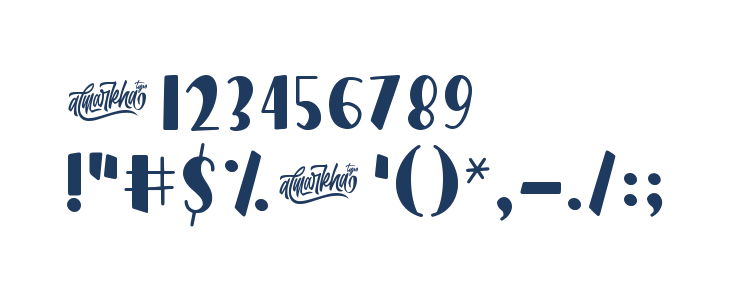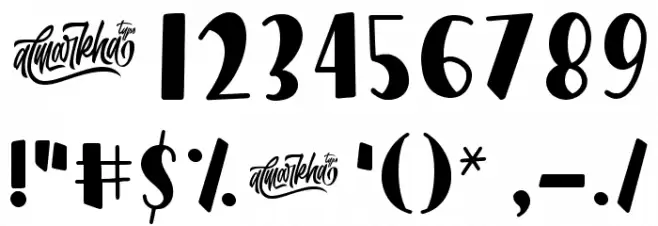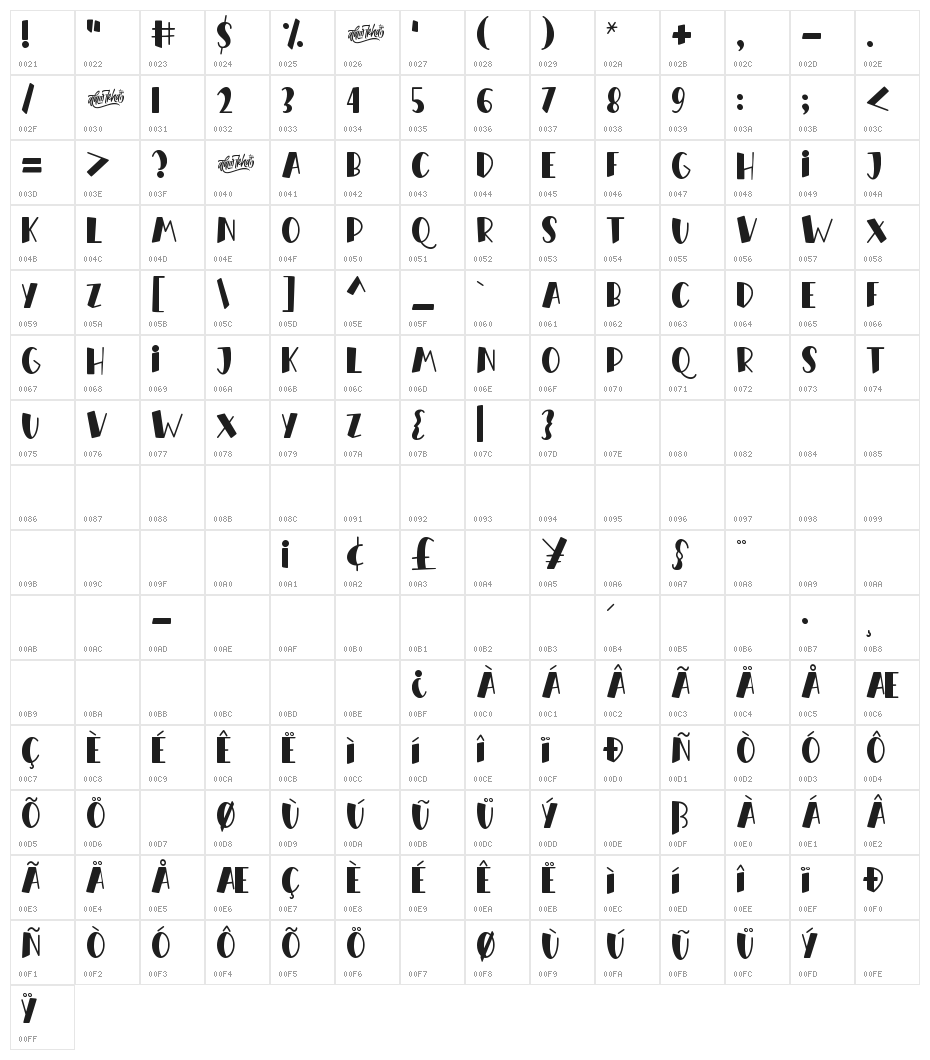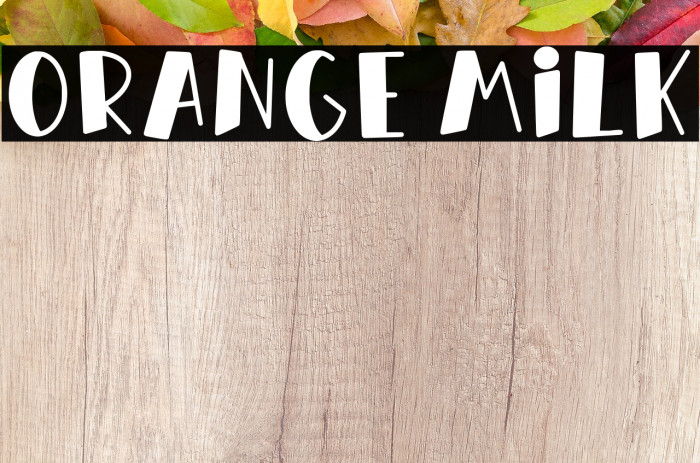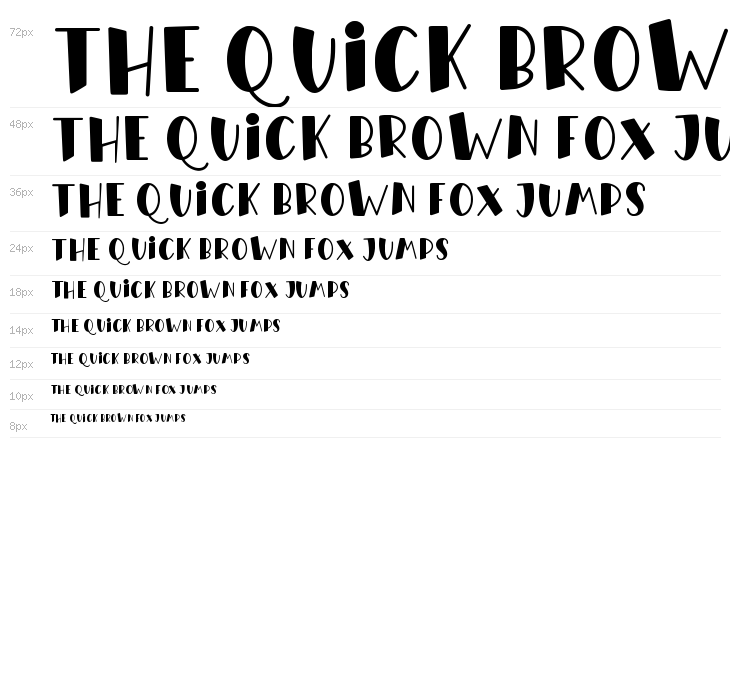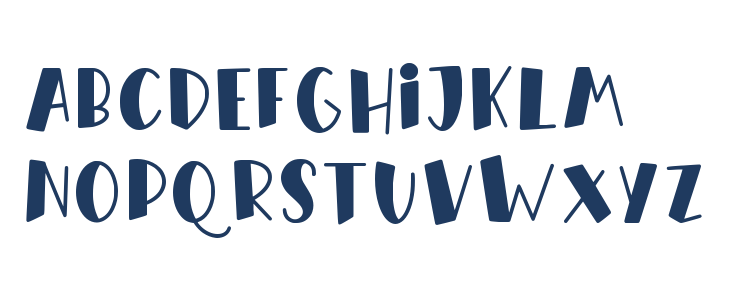
Orange Milk Font
Orange Milk Description
This font features a playful and bold design with a hand-drawn aesthetic. The characters are slightly irregular, adding a whimsical and artistic touch. The uppercase letters are tall and narrow, while the lowercase letters maintain a consistent style with slight variations in width and height. The numbers are bold and rounded, complementing the overall style. Special characters are creatively designed, maintaining the playful theme. This font is ideal for projects that require a fun and engaging visual appeal.
| Proposed Projects | Ideal for children's books, playful branding, creative posters, and artistic invitations. |